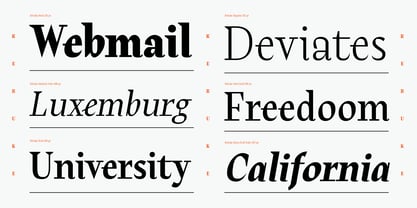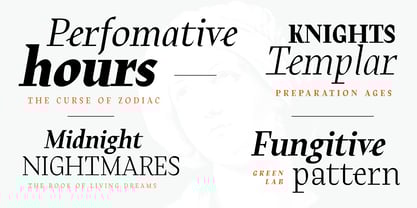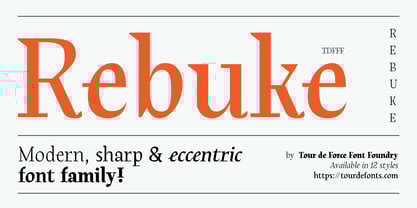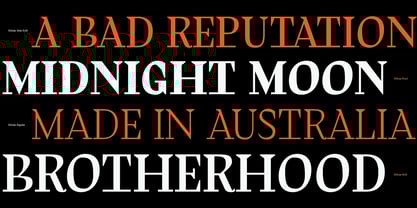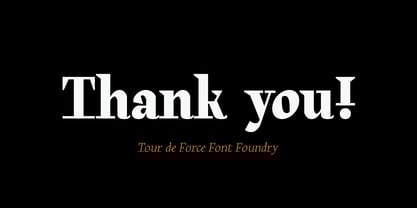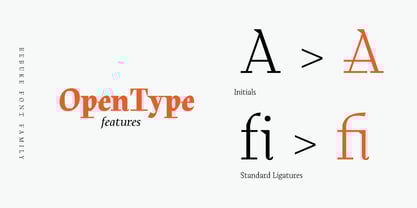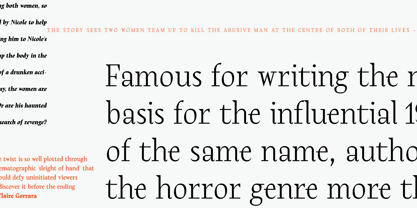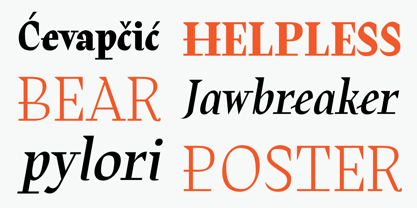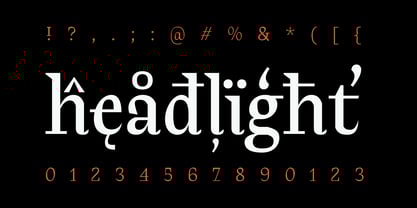
Rebuke
by Tour De Force
The Rebuke Font Family was designed by Dusan Jelesijevic and published by Tour De Force. Rebuke contains 12 styles and family package options.
Rebuke is modern serif font family available in 12 styles – 6 weights and matching Italics.
Design of Rebuke combines several different elements merged into one – lower serifs from Didone category, upper triangular straight serifs, extended serifs that connects two neighbouring letters, calligraphic endings and vintage design spots; all combined together make Rebuke pretty distinctive and unique typeface.
Rebuke font family is perfect choice for modern editorial usage. It is legible in small sizes and well balanced for continuously reading.
Contains Initials as OpenType feature.